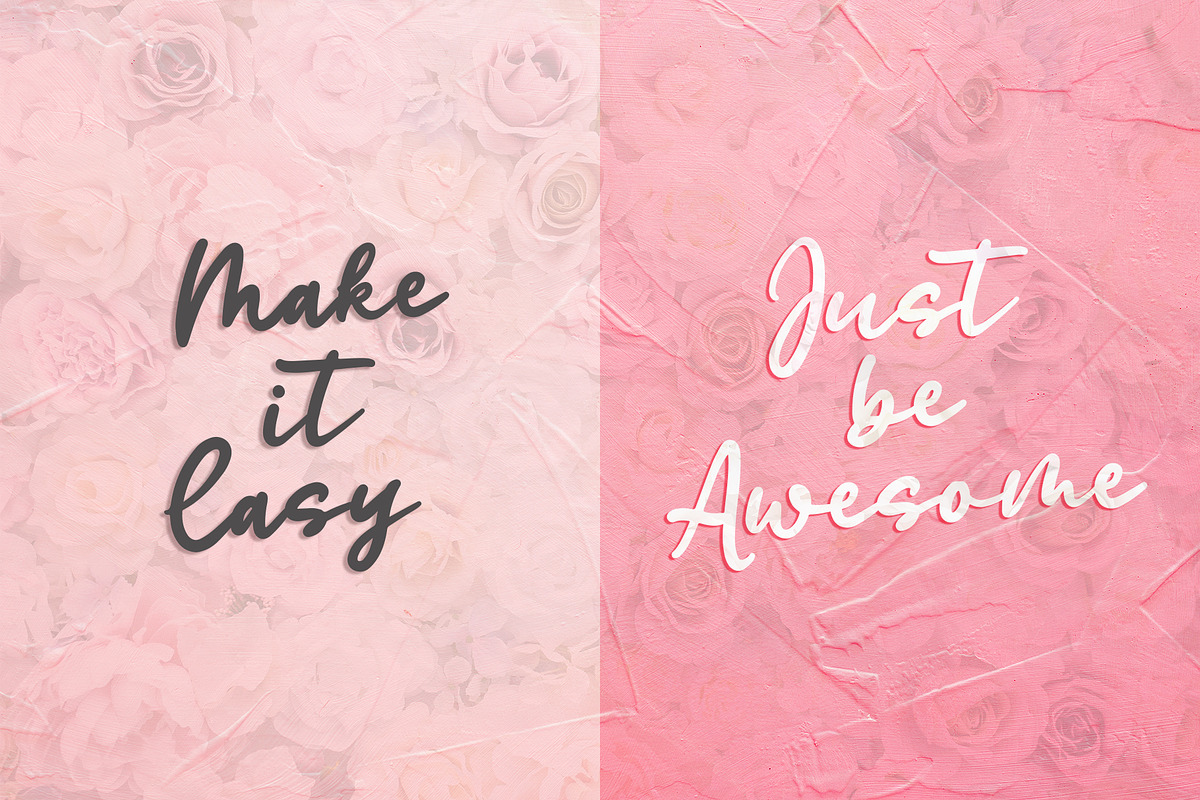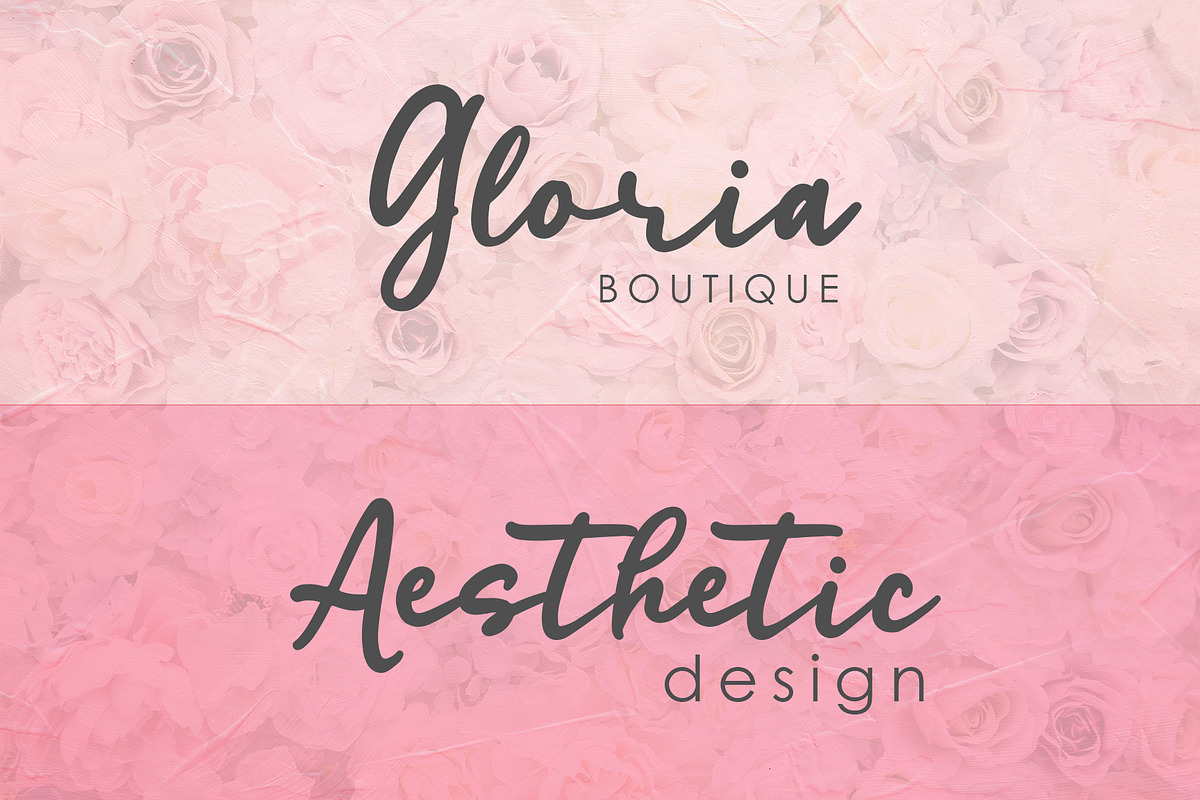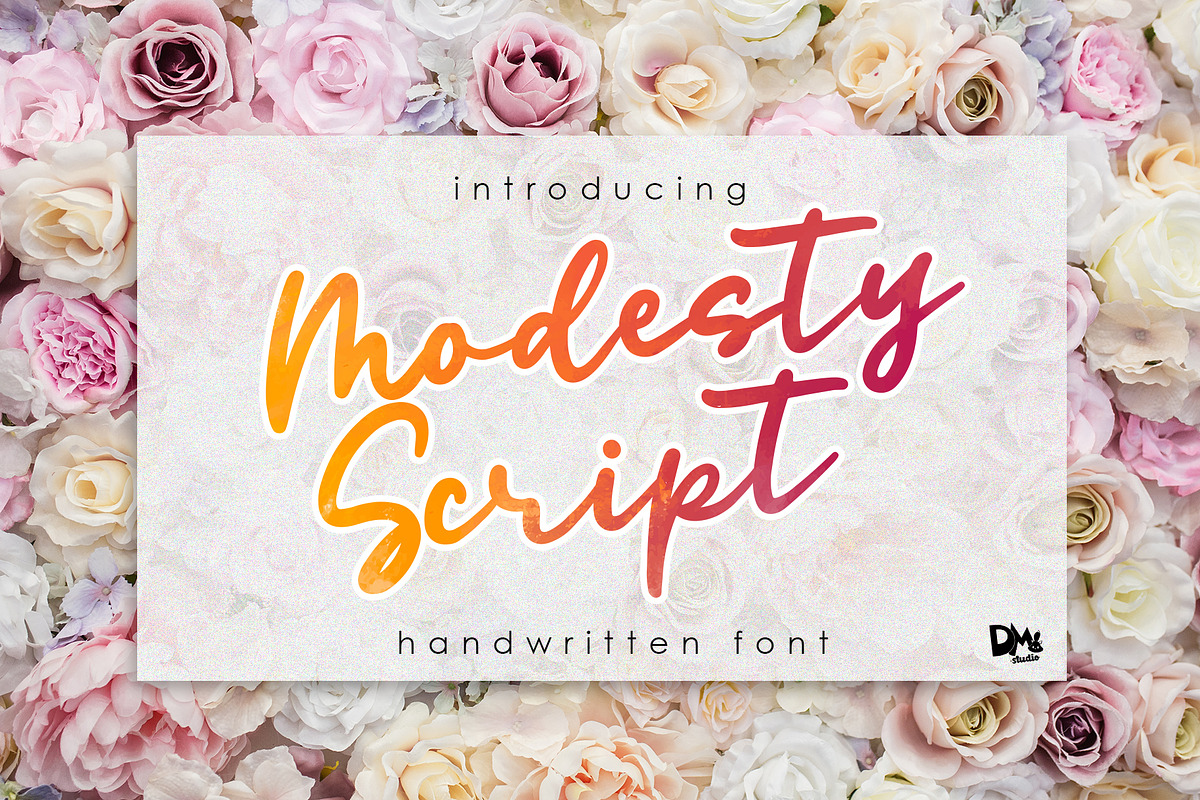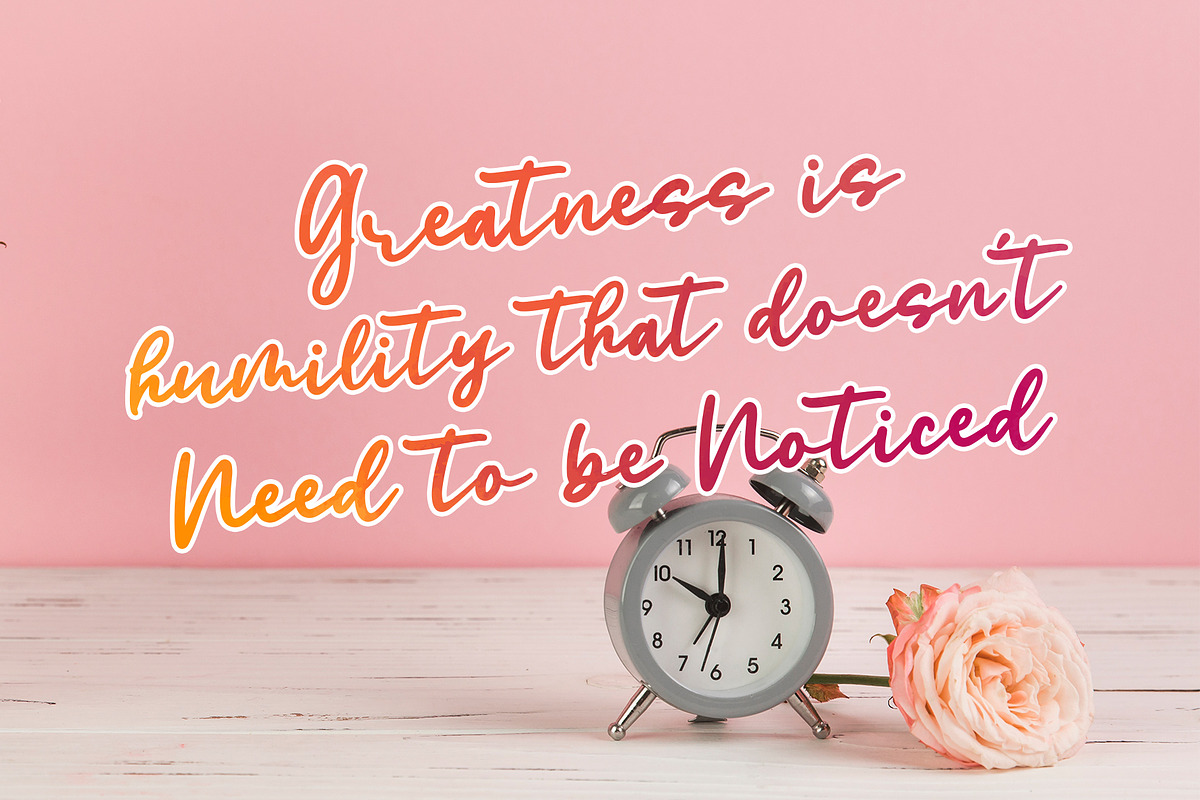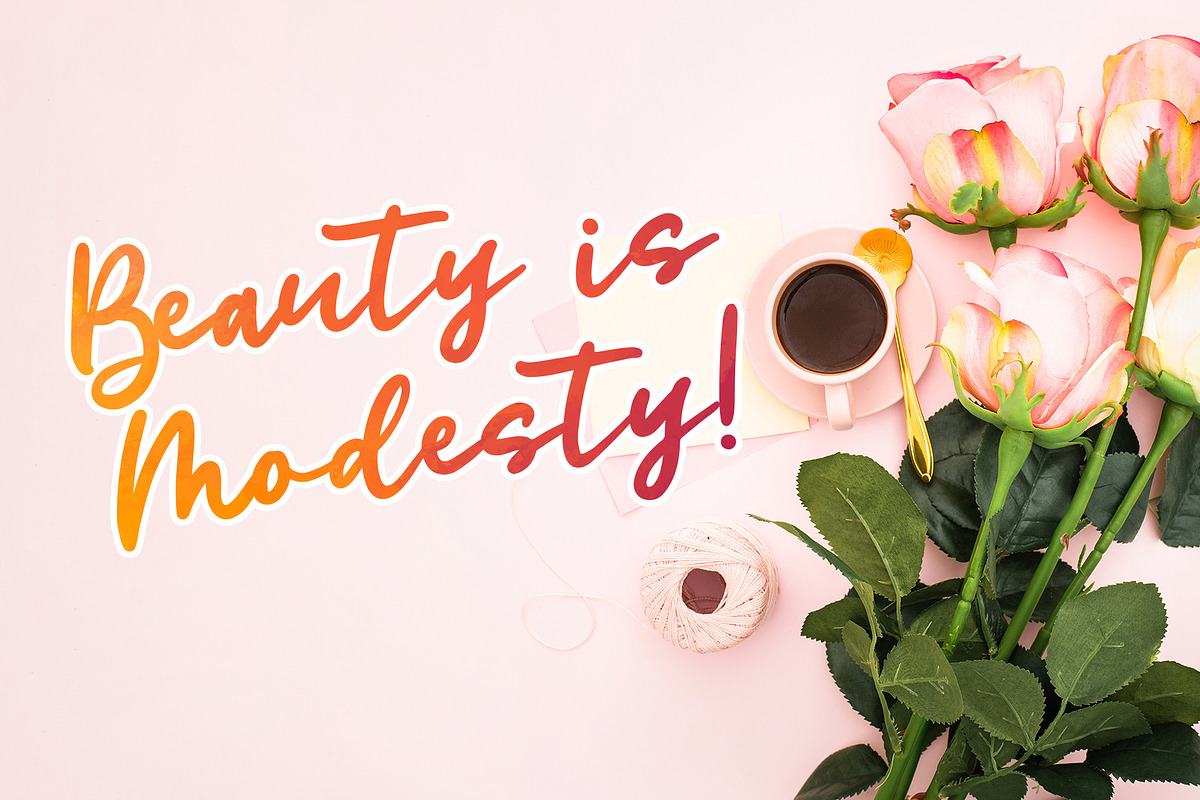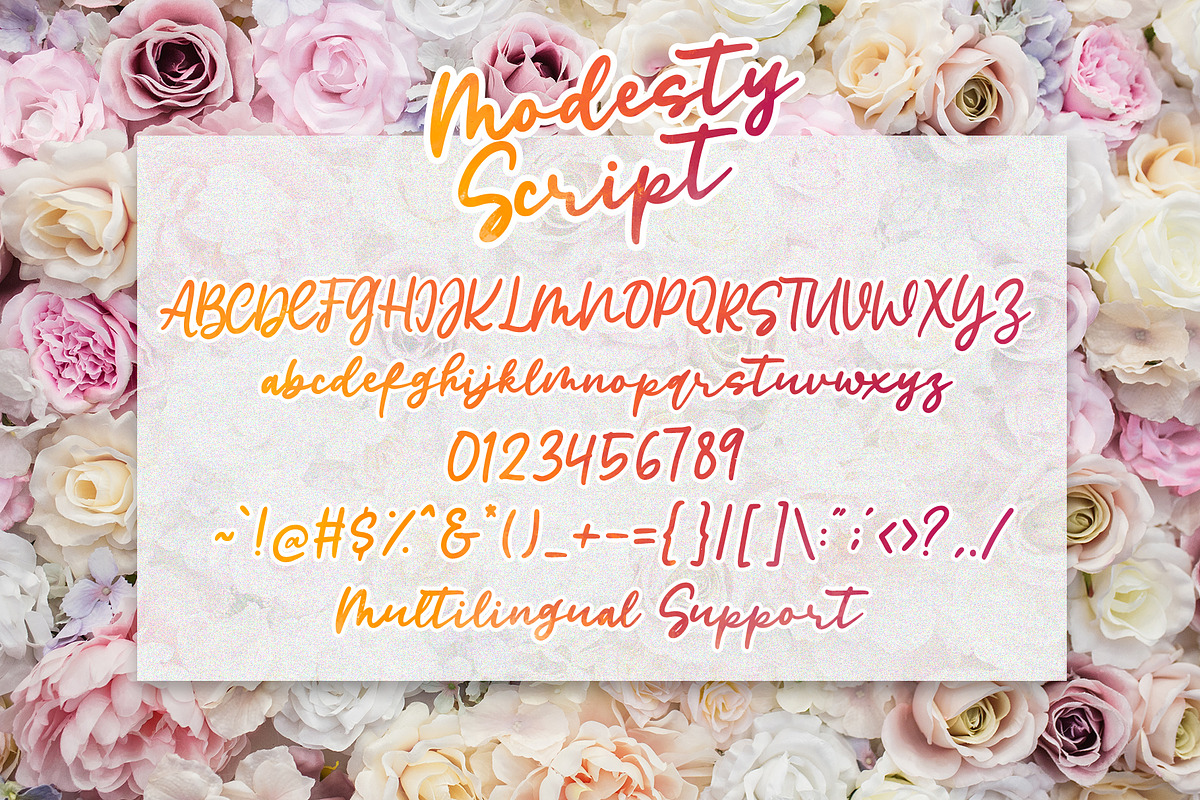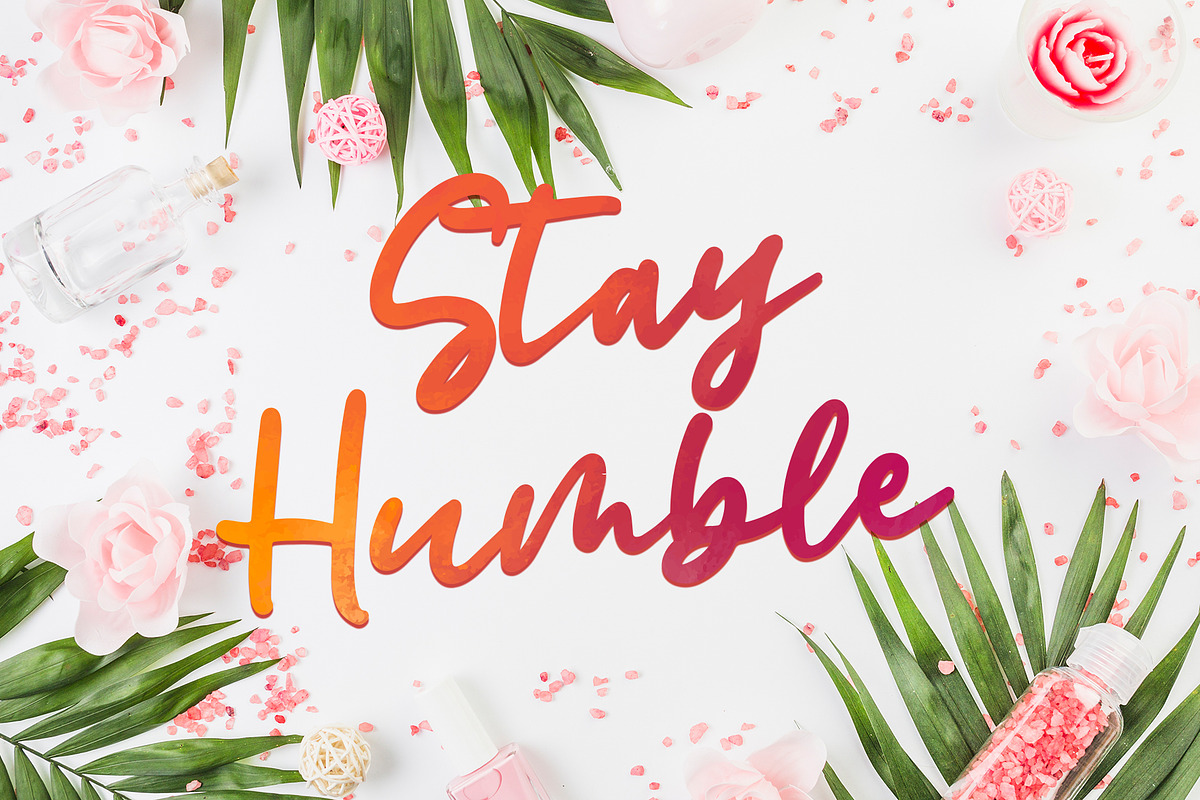
Modesty Script - Handwritten Font
Introducing, Modesty Script-Handwritten Font. It's a warm, simple and romantic handwritten crafty font, perfect to beautify your design.
Modesty Script - Handwritten Font by Dm Studio fits naturally into Branding, posters, packaging, typography.